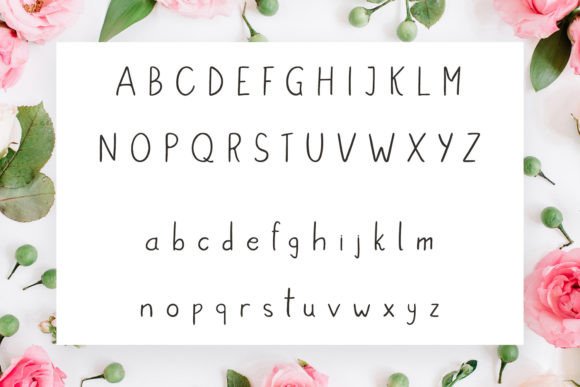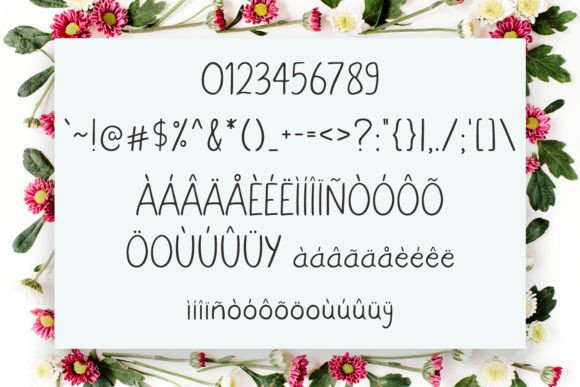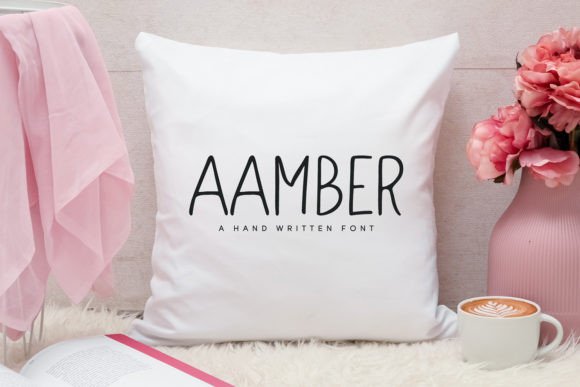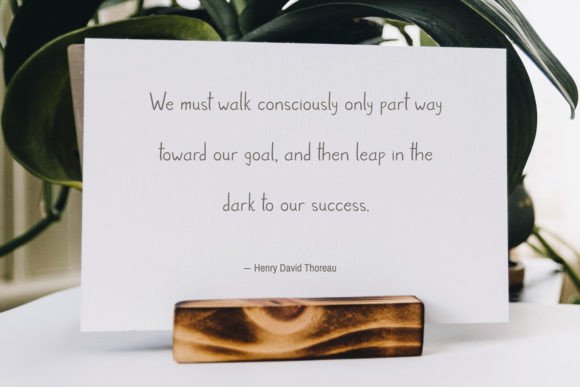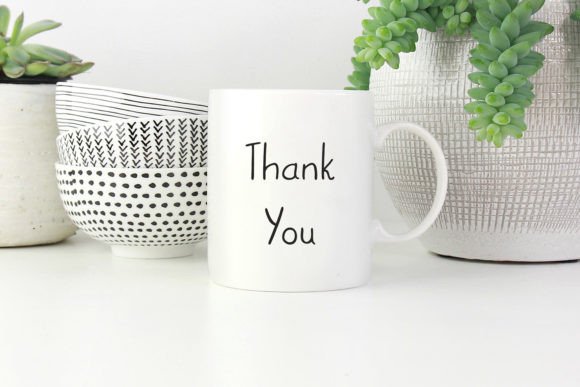
Aamber Font: Elevate Your Design with a Sweet, Delicate, and Modern Sans Serif
Are you on the hunt for a font that can instantly transform your design project into a stunning masterpiece? Look no further than Aamber, a beautiful sans serif font that is both sweet and delicate. With its modern aesthetic, Aamber is the perfect choice for designers and crafters looking to add a touch of elegance to their work.
The Versatility of Aamber Font
One of the standout features of Aamber font is its versatility. This font is suitable for a wide range of design projects, including packaging, presentations, logos, headlines, lettering, posters, branding, quotes, titles, magazine headings, web layouts, advertising, invitations, packaging design, books, and nearly any creative design. Whether you’re working on a personal project or a client’s, Aamber font is sure to impress.
Key Features of Aamber Font
- Sweet and Delicate: Aamber font boasts a sweet and delicate aesthetic that is sure to capture the attention of your audience.
- Modern Sans Serif: With its clean lines and modern sans serif design, Aamber font is perfect for designers looking for a fresh and contemporary look.
- Highly Versatile: Aamber font can be used for a wide range of design projects, from packaging and branding to web layouts and advertising.
- Easily Readable: The clear and concise design of Aamber font makes it easily readable, even at small sizes.
Why Choose Aamber Font?
So, why should you choose Aamber font for your next design project? Here are just a few reasons:
- Adds a Touch of Elegance: Aamber font adds a touch of elegance and sophistication to any design project.
- Standout from the Crowd: With its unique and modern aesthetic, Aamber font is sure to help your design project stand out from the crowd.
- Easy to Use: Aamber font is easy to use and can be easily integrated into a wide range of design projects.
- High-Quality: Aamber font is a high-quality font that is designed to deliver exceptional results.
How to Use Aamber Font
Using Aamber font is easy. Here are a few tips to get you started:
- Pair with Other Fonts: Aamber font pairs well with other fonts, making it easy to create a unique and visually appealing design.
- Experiment with Sizes: Aamber font looks great at a wide range of sizes, from small and delicate to large and bold.
- Use for Headlines and Titles: Aamber font is perfect for headlines and titles, adding a touch of elegance and sophistication to any design project.